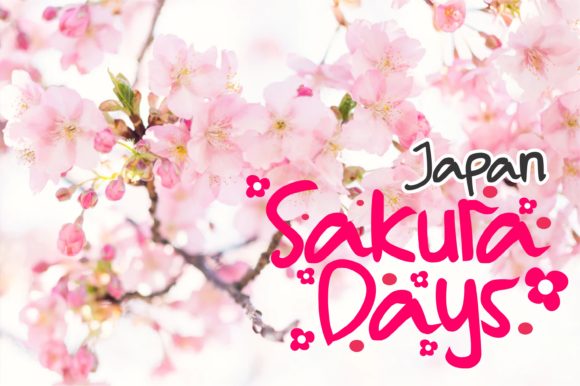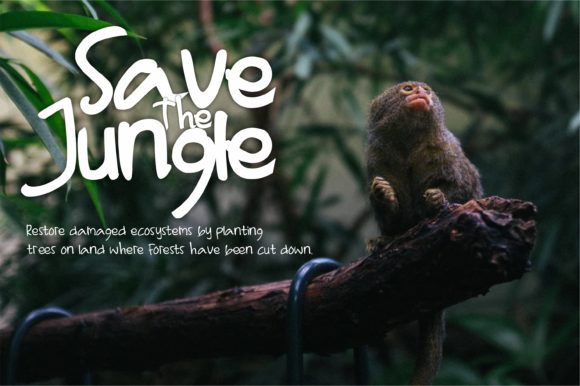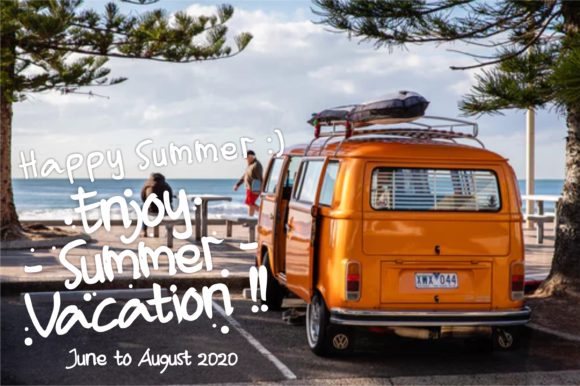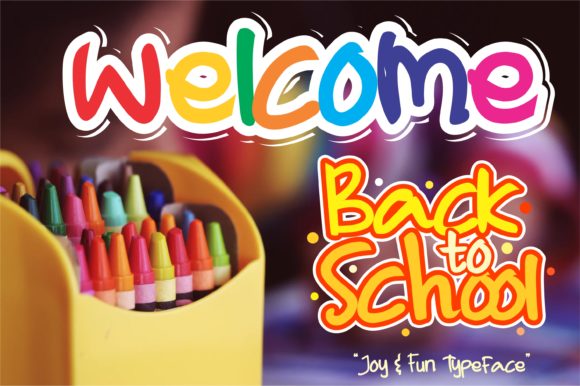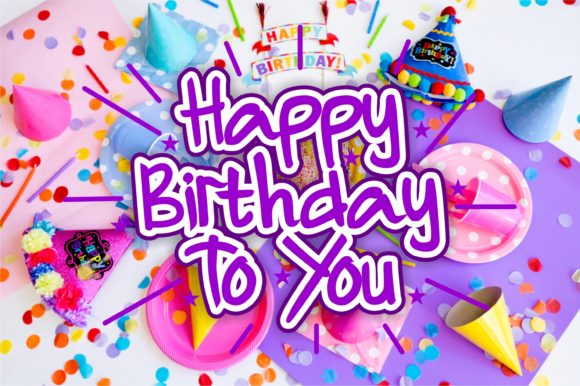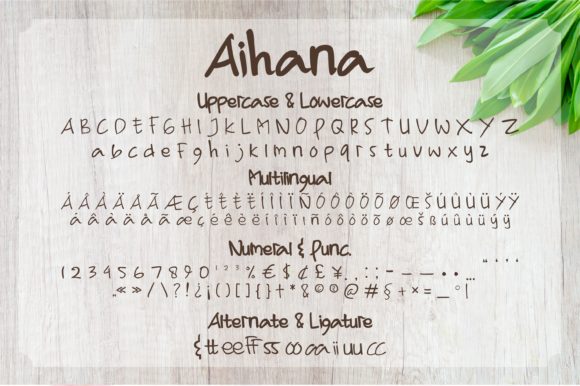
Adding a Personal Touch to Your Designs
Have you ever stared at a blank canvas, waiting for the perfect spark to ignite your creativity? That’s exactly where I was when I first discovered Aihana Handwritten Font. Its unique, hand-drawn style immediately caught my attention and set my imagination ablaze.
Aihana Handwritten Font is more than just a font – it’s a key to unlocking a world of personal and whimsical designs. This delightful mixed handwritten font is designed to add a touch of happiness to any project, making it perfect for creatives looking to bring their ideas to life.
For designers, Aihana Handwritten Font is a valuable addition to any toolkit, offering a fresh and playful way to express themselves and connect with their audience on a deeper level. Whether you’re working on a branding project, creating a social media campaign, or designing a wedding invitation, Aihana Handwritten Font is sure to inspire and delight.
Aihana Handwritten Font Key Features
- Unique Characteristics: Features a unique, handwritten style with subtle imperfections, giving it a personal and creative touch.
- Font Style: Includes 6 different font styles, ranging from casual to elegant, allowing designers to choose the perfect look for their project.
- Script and Ligatures: Includes a range of script and ligature options, adding to the font’s unique and dynamic feel.
Aihana Handwritten Font Review
Overall, I’m quite impressed with the Aihana Handwritten Font. It’s perfect for adding a touch of whimsy and personality to your designs ✨. The font has a beautiful, hand-written feel to it, making it ideal for use in invitation designs, quotes, and other creative projects.
- Unique, handwritten feel that adds a touch of personality to designs ✨
- Perfect for use in invitation designs, quotes, and other creative projects
- Includes a wide range of characters and glyphs, including uppercase and lowercase letters, numbers, and punctuation
- High-resolution fonts for clear and crisp printing
That being said, there are a few limitations to consider:
- Font may not be suitable for use in body text, as it can be difficult to read in large blocks of text ⚠️
- May not include some of the more obscure characters or languages, which could be a limitation for designers working on international projects ⚠️
Overall, I think the Aihana Handwritten Font is a great addition to any designer’s toolkit. While it may have a few limitations, its unique feel and wide range of characters make it perfect for adding a touch of personality to your designs.
Tips for Getting the Most Out of Aihana Handwritten Font
Use Aihana Handwritten Font for titles, headings, and other text elements where you want to add a touch of elegance and sophistication.
Pair Aihana Handwritten Font with other fonts to create a unique and visually appealing design.
Experiment with different font sizes, colors, and styles to achieve the desired look.
Common Use Cases for Aihana Handwritten Font
Aihana Handwritten Font is perfect for:
Branding and logo design
Typography-based art